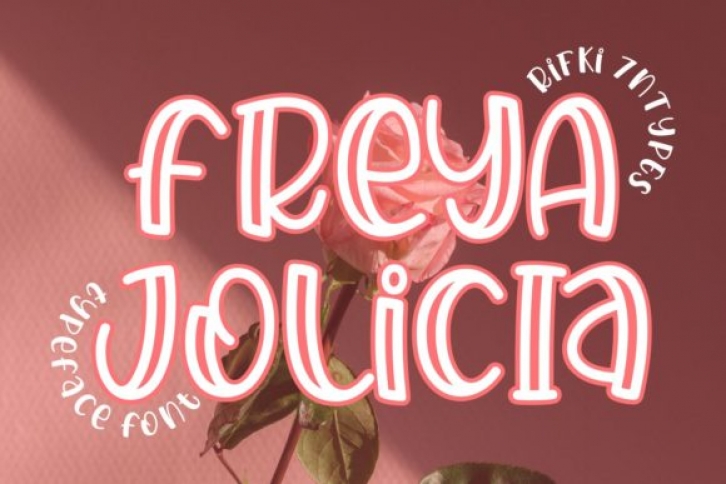
Freya Jolicia is a playful display font. It will add a very relaxed and childish touch to your designs. Add this beautiful display font to each of your creative ideas and notice how it makes them stand out!